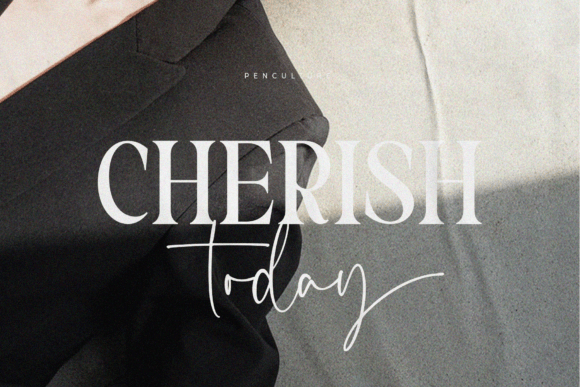
**Behold Cherish Today Font: The Epitome of Sophistication and Style for Your Designs**
In a world saturated with monotony, Cherish Today Font bursts forth as a breath of fresh air, a symphony of elegance and grace. This exquisite font duo, meticulously crafted by Pen Culture, seamlessly blends the timeless charm of a serif font with the captivating allure of a script font, offering a visual masterpiece that elevates your designs to unprecedented heights of sophistication.
Cherish Today Font is not just a collection of letters and symbols; it's an artistic expression, a testament to the enduring power of creativity. Its carefully designed curves, delicate flourishes, and subtle nuances evoke a sense of nostalgia and timeless beauty, captivating the hearts of discerning designers and typography enthusiasts alike.
Imagine your business cards adorned with the refined strokes of Cherish Today Font, exuding an air of professionalism and impeccable taste. Your words will dance across the page, leaving an indelible mark on the minds of your clients and colleagues.
Picture your wedding invitations, adorned with the flowing elegance of Cherish Today Font, becoming treasured keepsakes that capture the essence of your special day. Each letter, lovingly crafted, will convey the depth of your emotions, transforming your invitation into a timeless work of art.
Explore the boundless possibilities of Cherish Today Font and unleash your creativity. Its multilingual support opens up a world of design opportunities, allowing you to connect with audiences across cultures and languages. Create stunning logos, captivating social media graphics, eye-catching posters, and awe-inspiring website designs that leave a lasting impression.
Cherish Today Font is more than just a font; it's an investment in your design arsenal, a versatile tool that empowers you to create captivating visuals that resonate with your audience. Embrace the beauty of Cherish Today Font and embark on a creative journey that will leave them breathless.